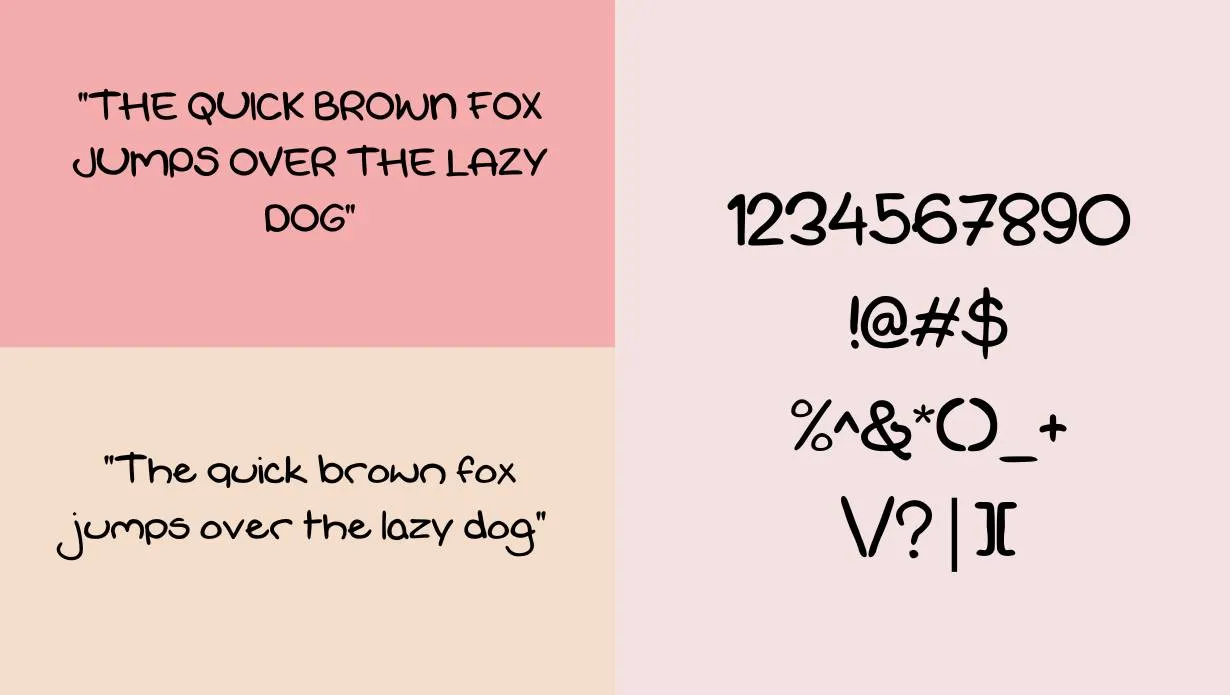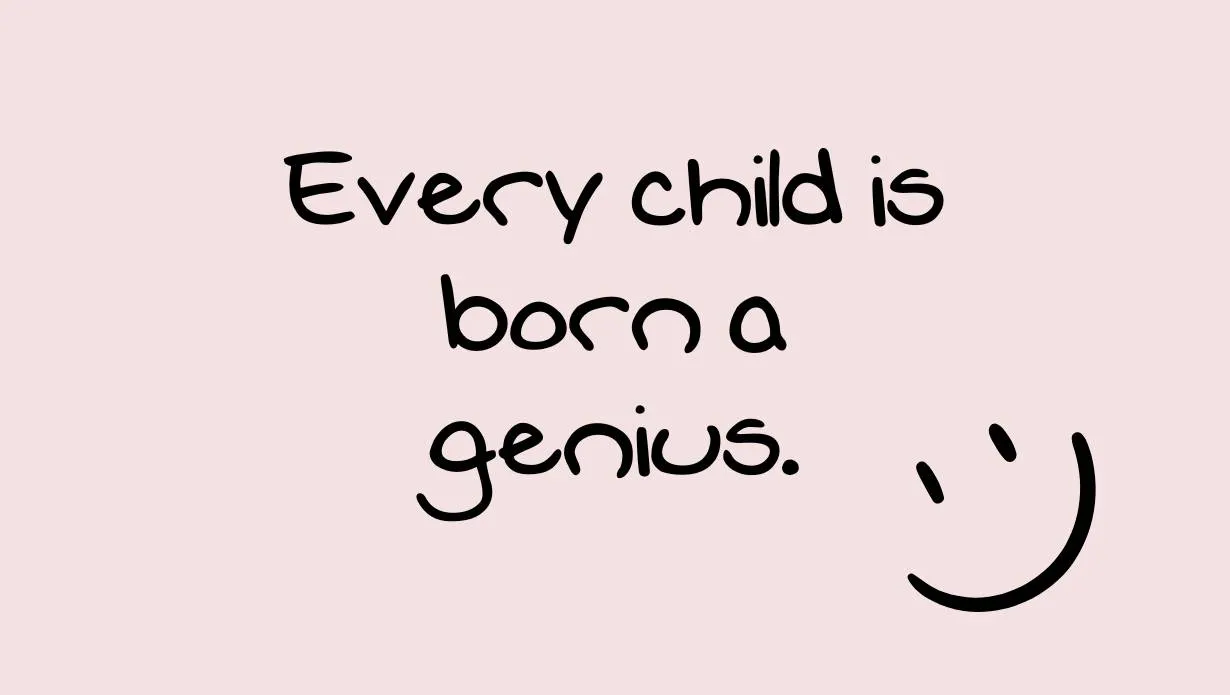
Kidplay Font is a script font created by Ahmed Zulfikar Ali and released by Zet Designs. It comes in TTF and OTF formats.
This font has a lovely, whimsy, and handcrafted texture that makes it perfect for all your fun design projects.
Its funny and playful appearance is perfect for kids-related projects. This font style is perfect for macOS, iOS, Canva, CorelDraw, Sketch, Adobe, Figma, Cricut, Web, Windows, Android, etc.